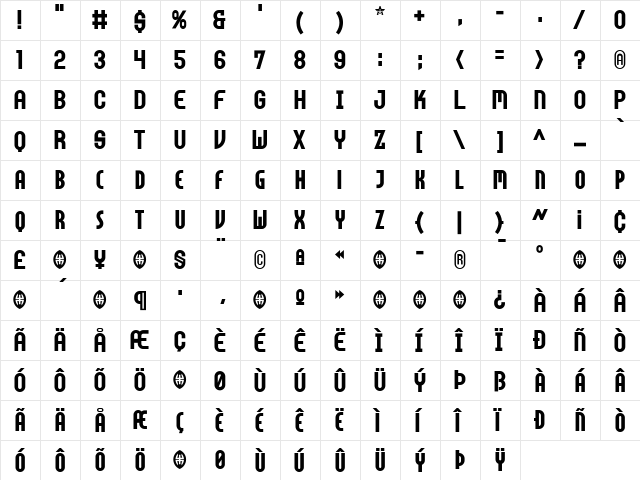
Tokyo Medium Font Preview
Tokyo Medium
Tokyo Medium Font Details
Design Context for Tokyo Typeface
Tokyo is a composed and adaptable typeface that performs quietly and consistently across a wide range of design contexts.